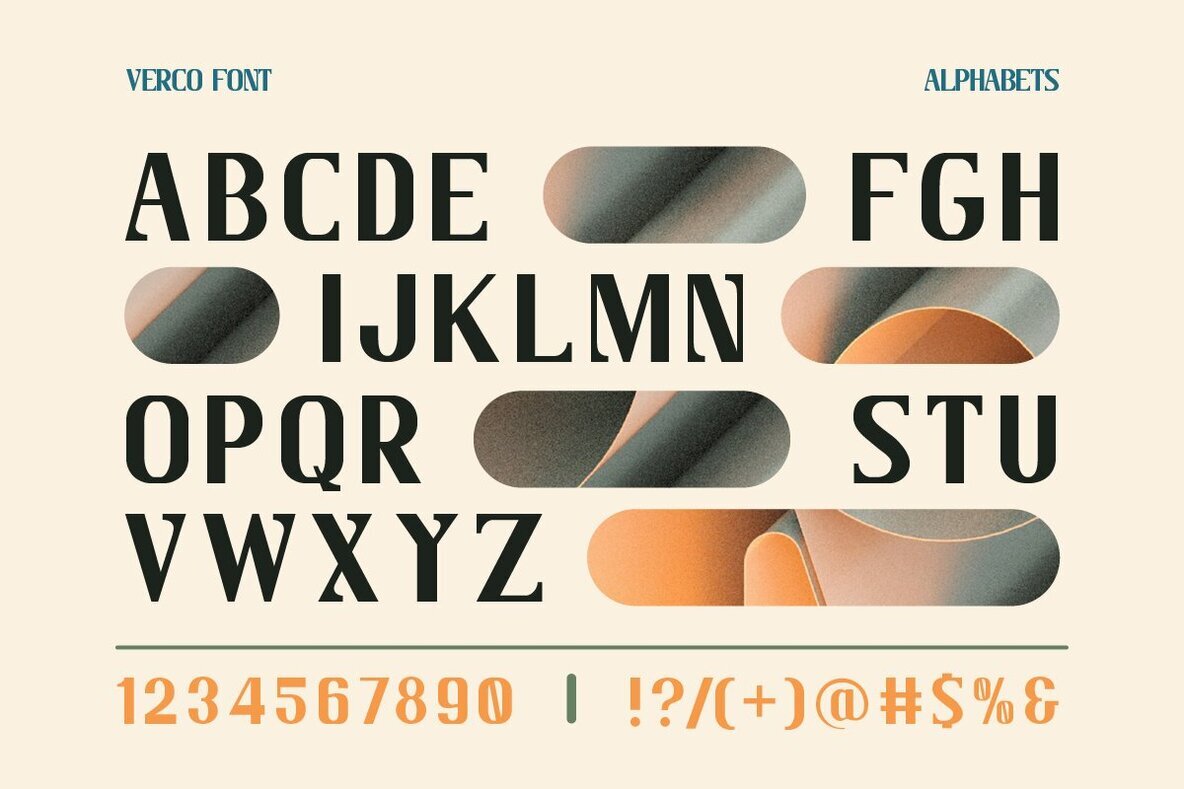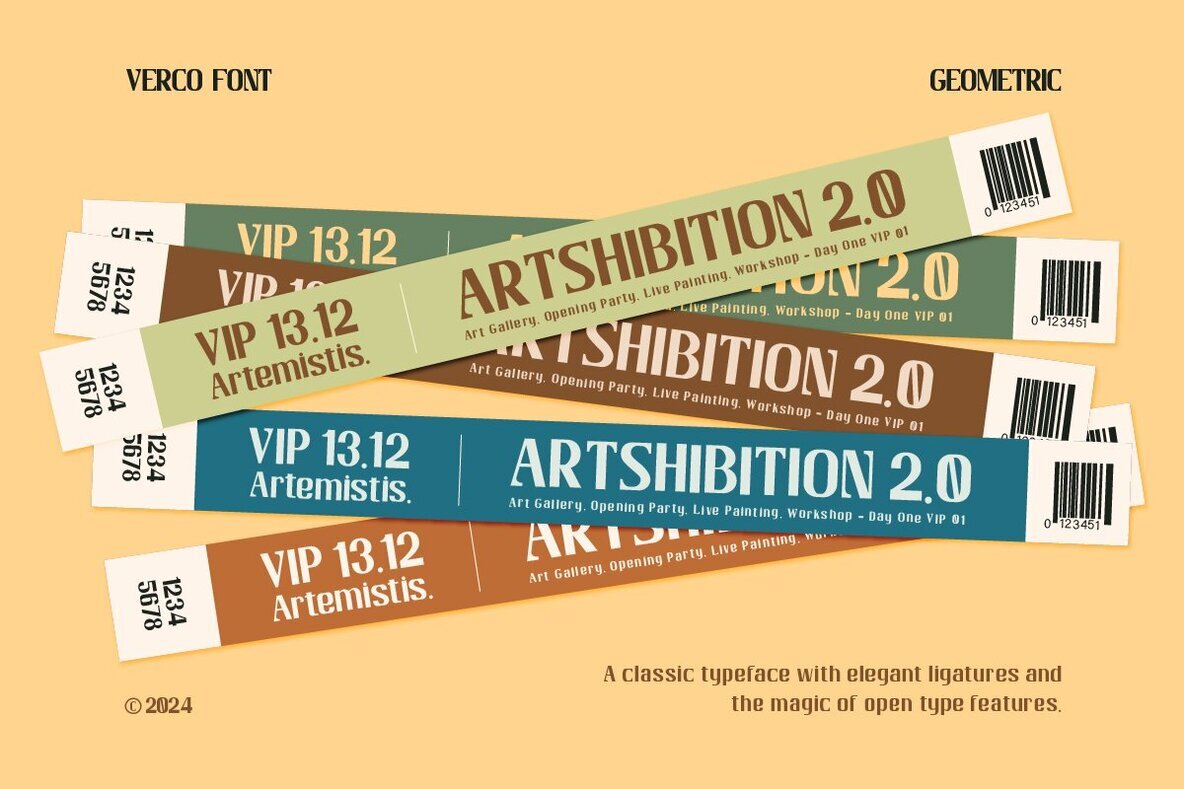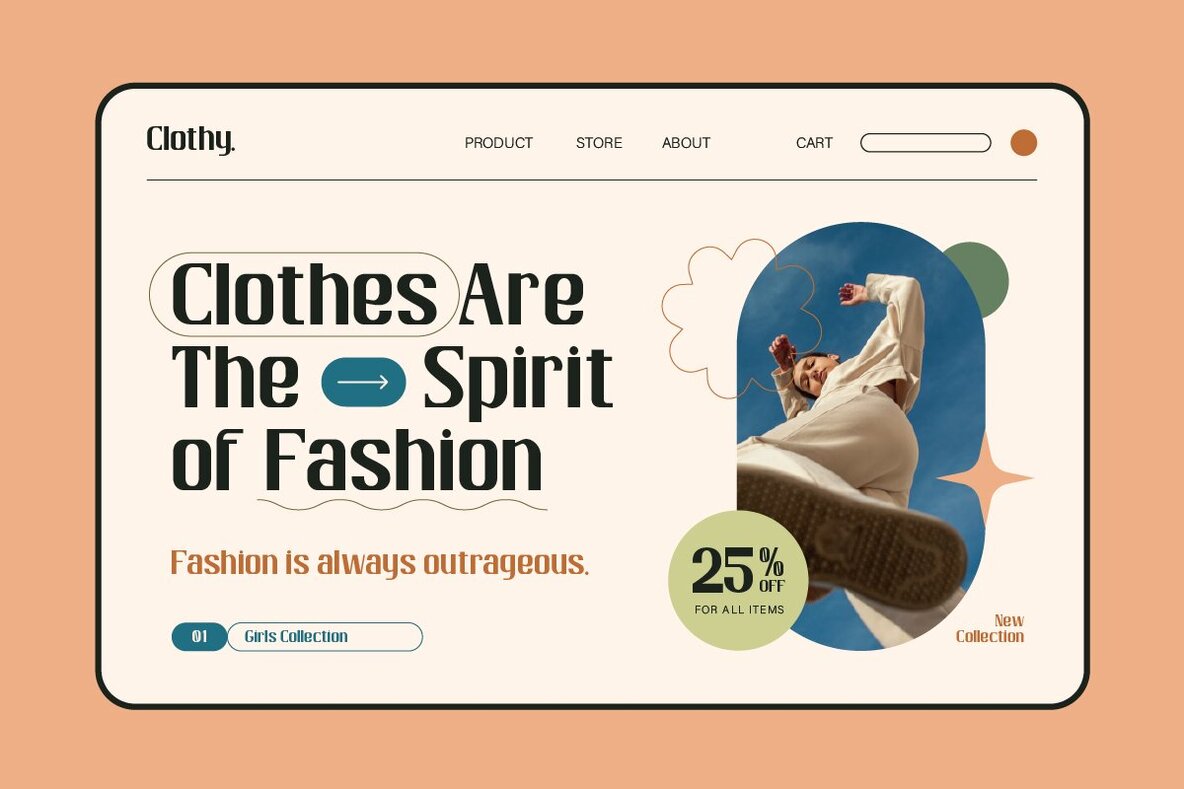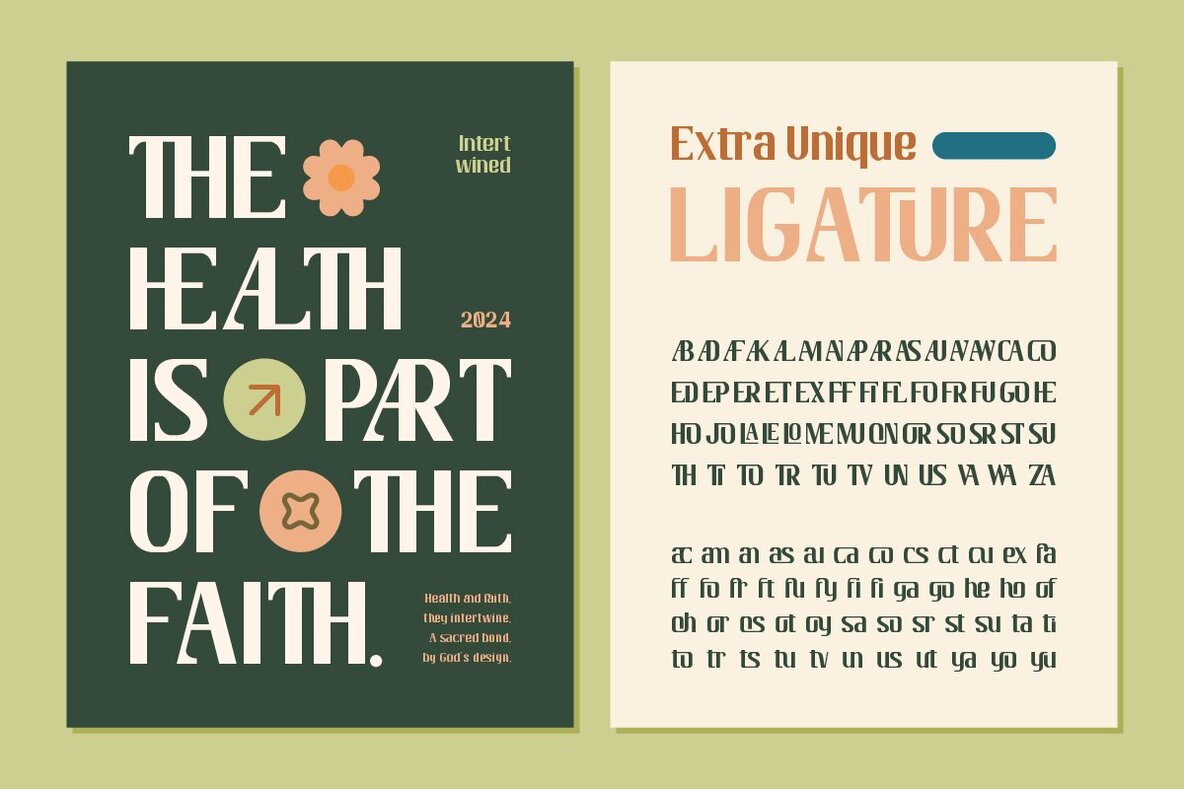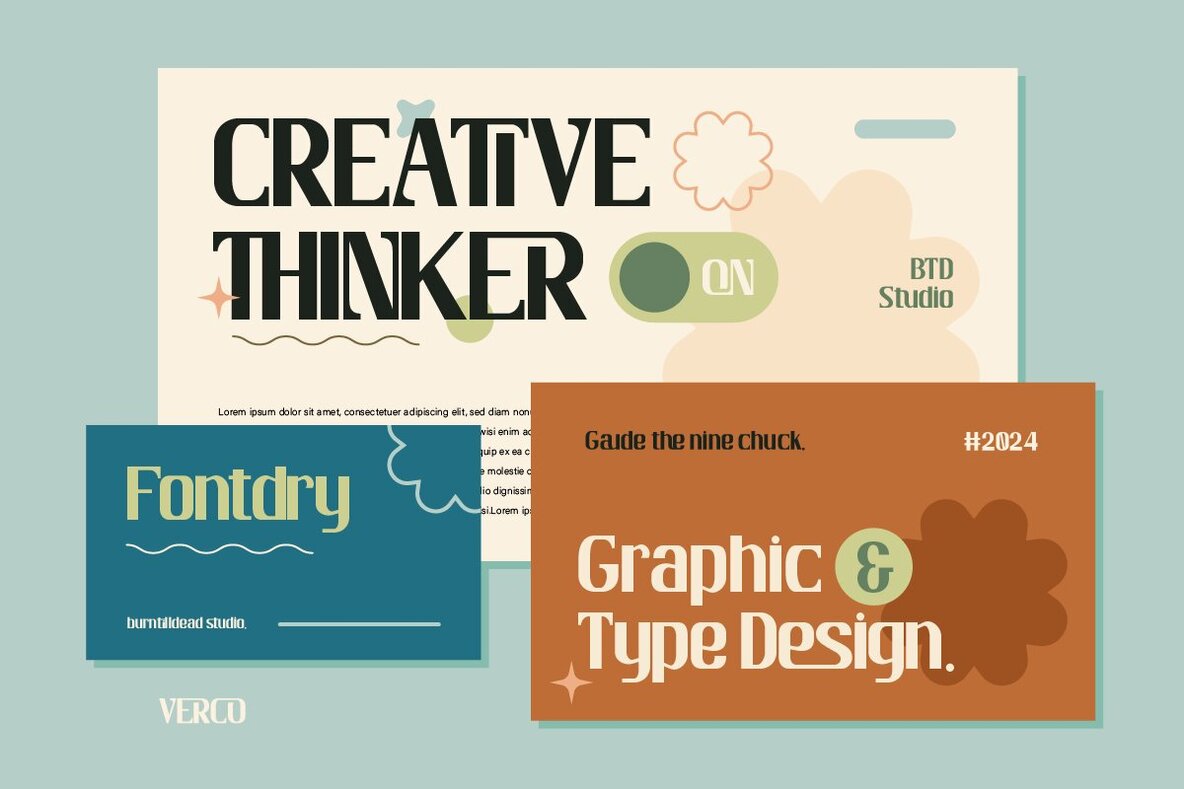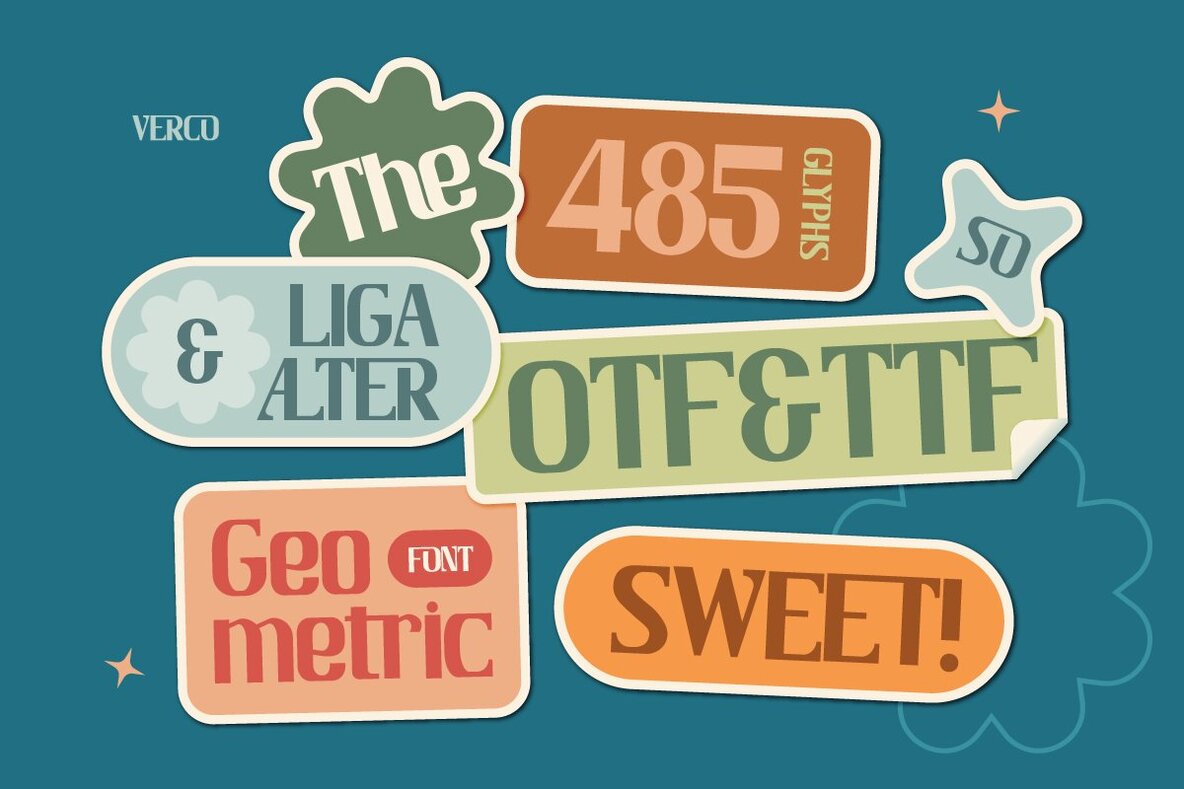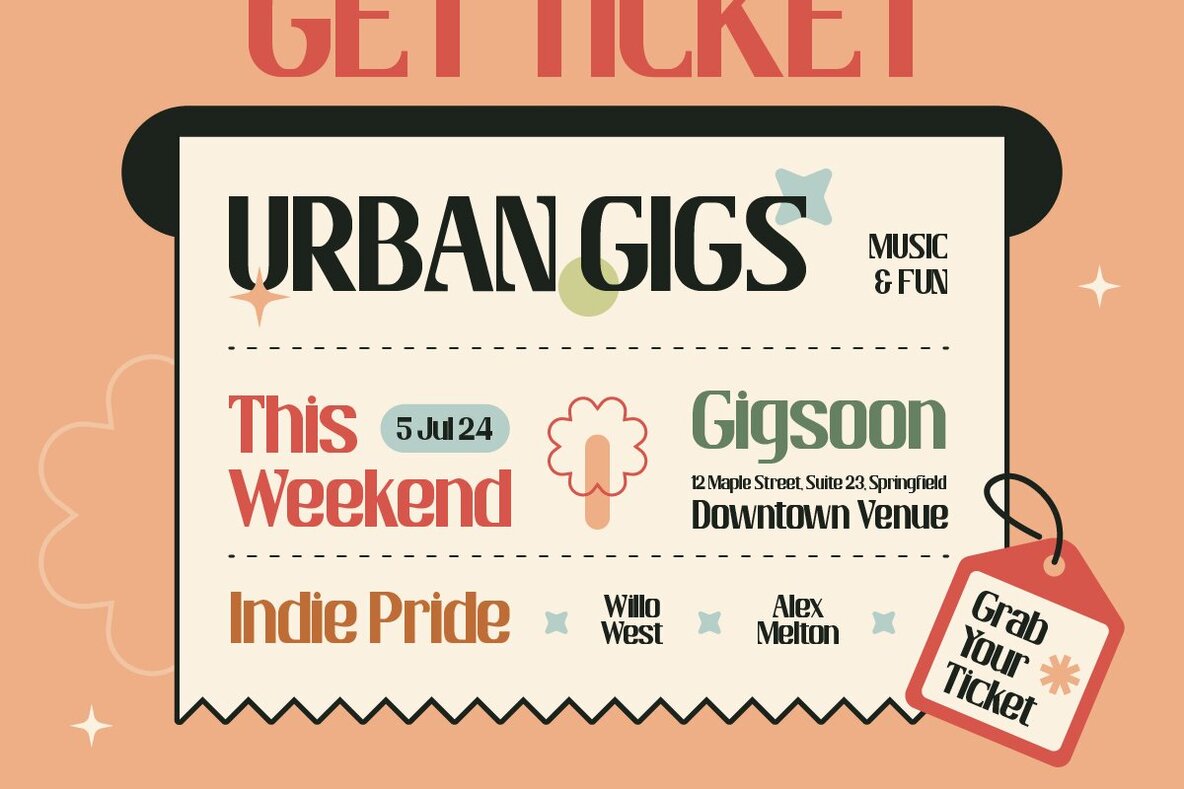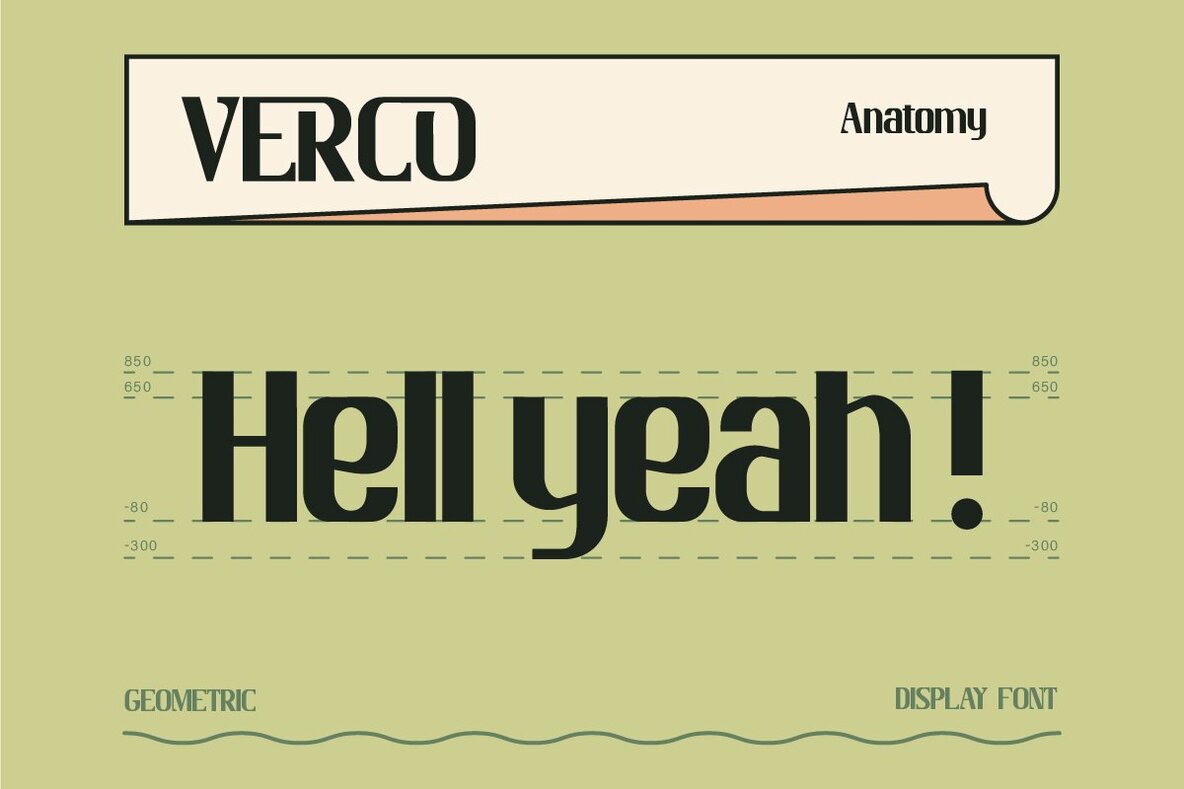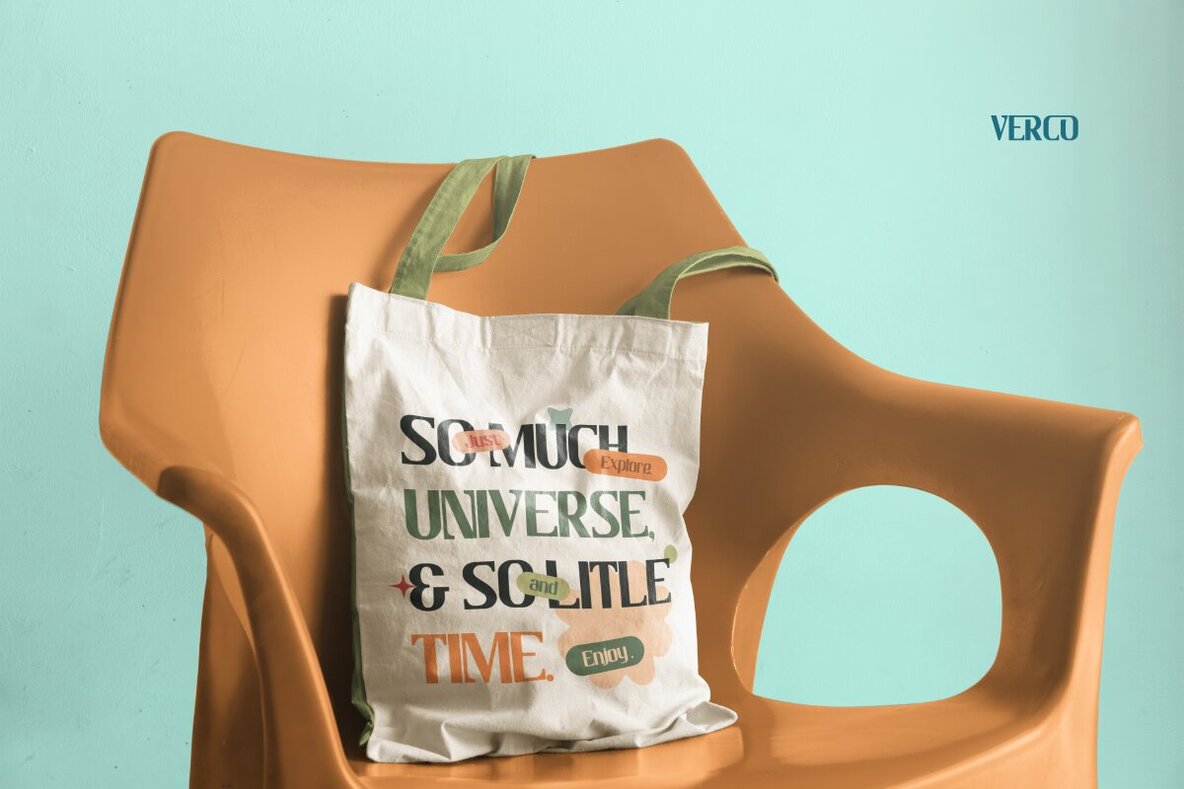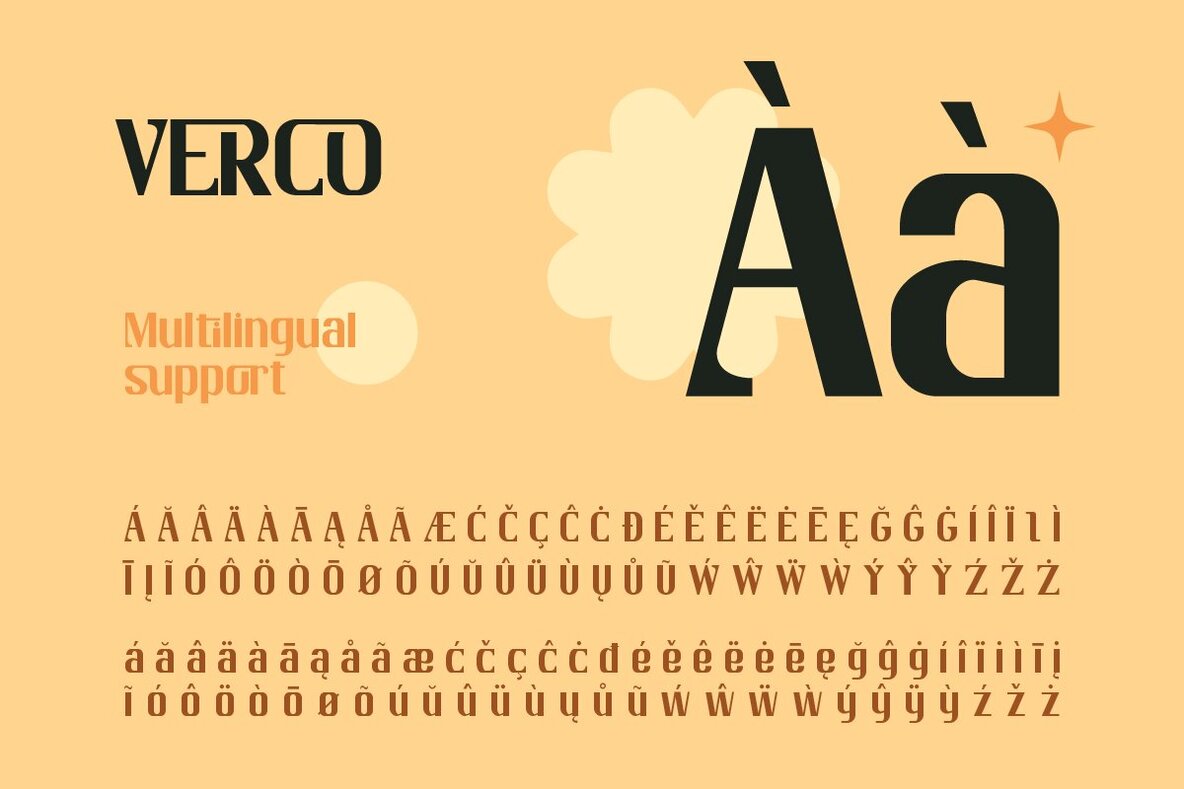
Verco Font
Verco Regular
Verco is a geometric font characterized by clean, structured shapes like squares, triangles, and circles. This minimalist and modern aesthetic creates a striking visual impact. Perfect for tech, design, and branding projects, Verco delivers clarity and sophistication with an edgy, contemporary feel. Whether you aim for a bold statement or a refined look, this font brings precision and elegance to your typography.
Ideal for sleek and contemporary design projects, Verco offers a comprehensive set of features including A-Z characters, numbers, punctuation, ligatures, and multilingual support. Its versatility makes it suitable for diverse applications, enhancing your projects with a professional and modern touch.